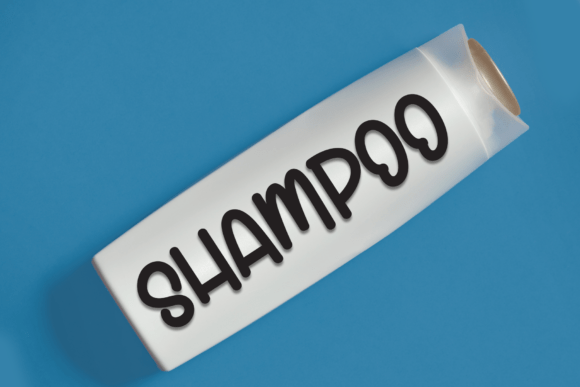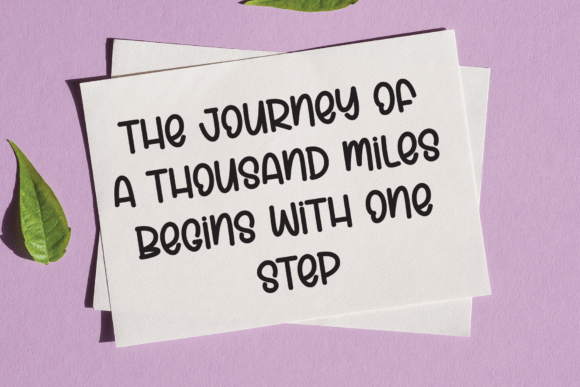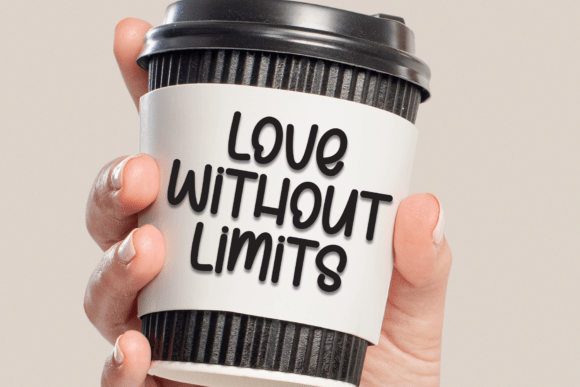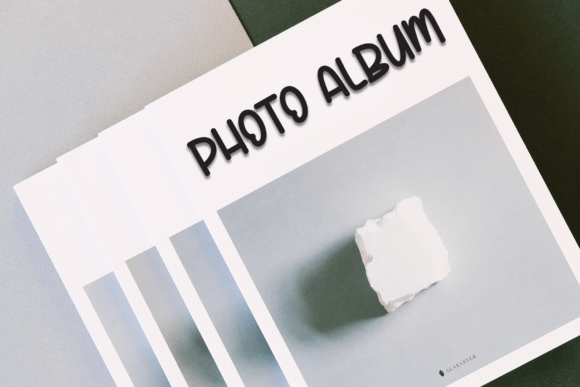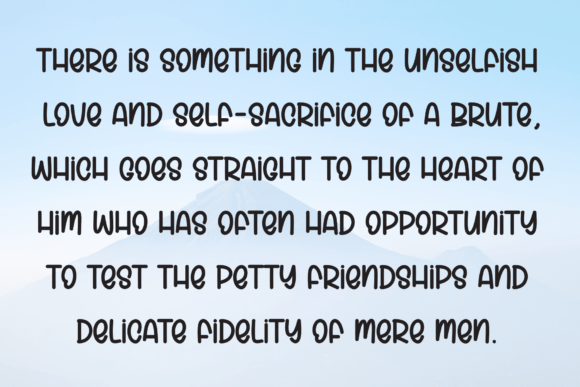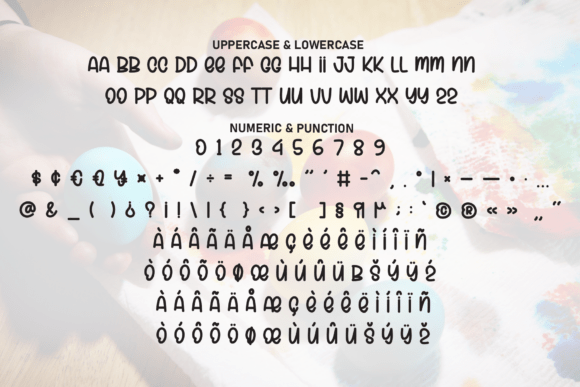
Introduction to Easter Rainbow Font
Immerse yourself in the whimsical charm of our hand-drawn display font.
Boasting a sweet and friendly appeal, this delightful typeface is your ultimate pick for crafting engaging wedding invites, endearing cards, or any design project craving a sprinkle of fun Experience the joy of bringing your narratives alive with its adorable and playful tonality.
Key Features of Easter Rainbow Font
Why Choose Easter Rainbow Font?
Easter Rainbow Font offers exceptional quality and versatility, making it a valuable addition to your design toolkit. Whether you’re creating for personal projects or commercial use, Easter Rainbow Font delivers professional results.